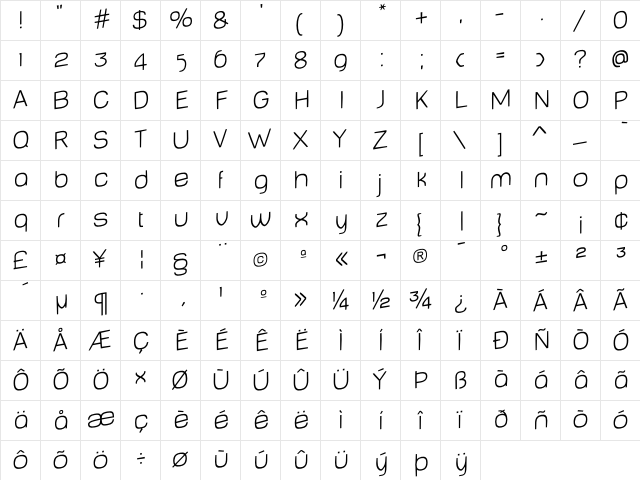
Baby MineThinJumping
Design Context for Baby Typeface
Baby takes a measured approach to typography — its balanced proportions and neutral character make it a reliable workhorse for both digital and print work. The delicate stroke weight brings airiness and refinement to layouts.